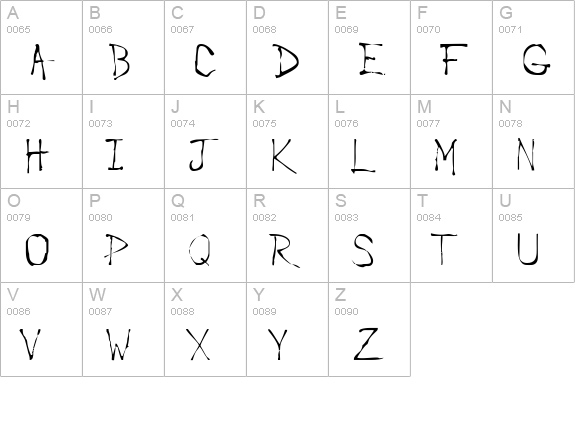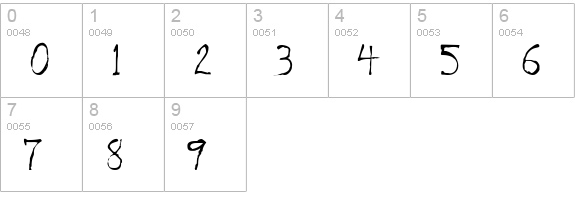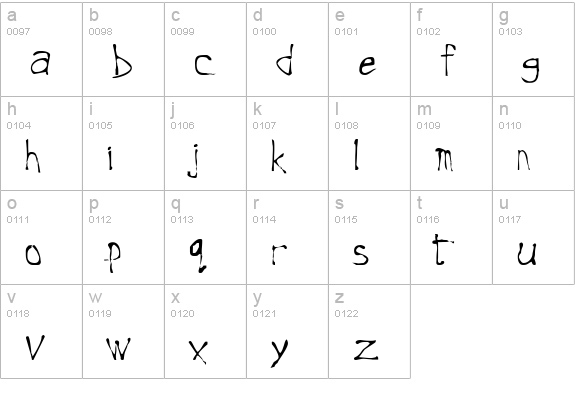
RoughedgeA Font Details
Introducing RoughedgeA font, a bold and edgy typeface that exudes a sense of ruggedness and strength. This unique font features rough edges and sharp angles, giving your designs a distinctive and powerful look. Perfect for projects that require a touch of intensity and attitude, RoughedgeA font is sure to make a statement. The best part? RoughedgeA font is available for free download at FontsMarket.com. Whether you're working on a poster, logo, or any other design project, this font is a versatile choice that will add a dynamic and raw element to your creations. Don't miss out on the opportunity to enhance your designs with the striking appeal of RoughedgeA font. Download it now and unleash your creativity!